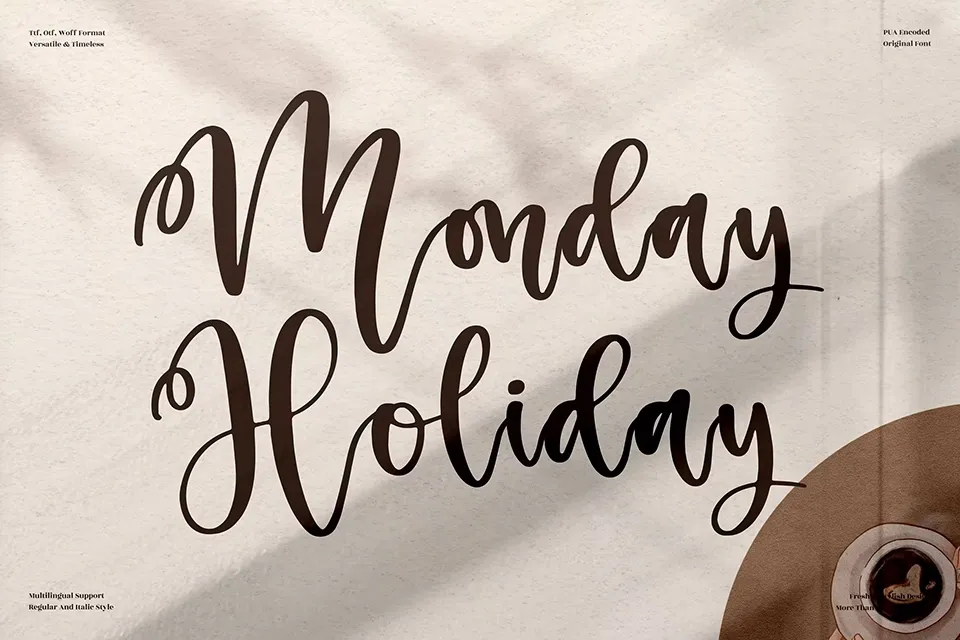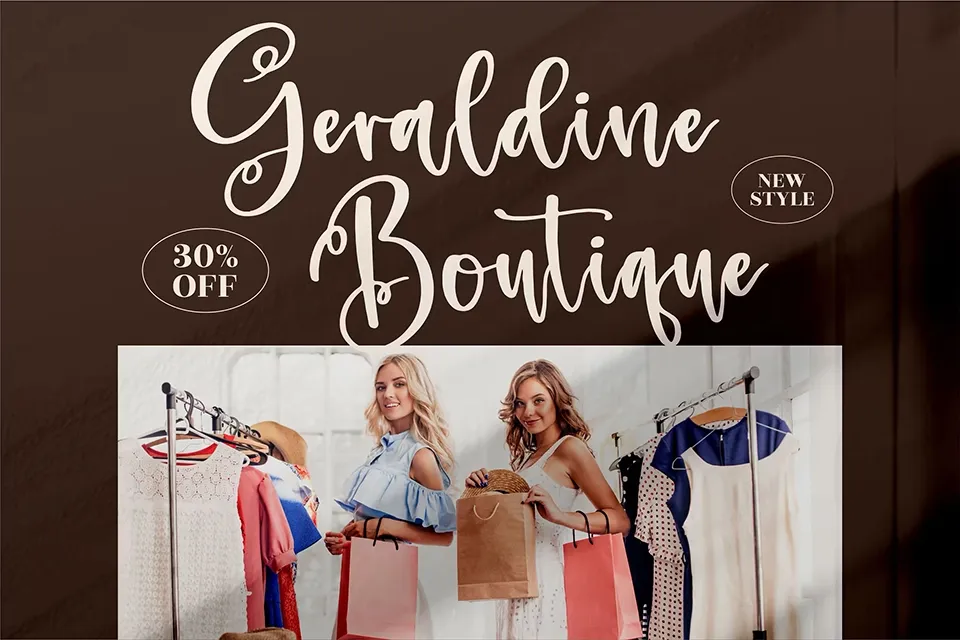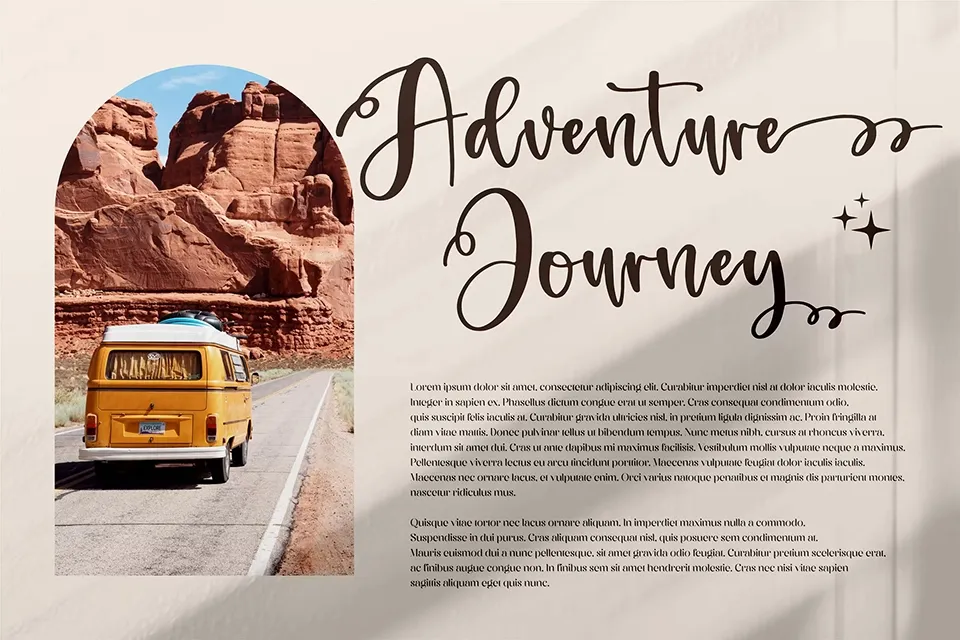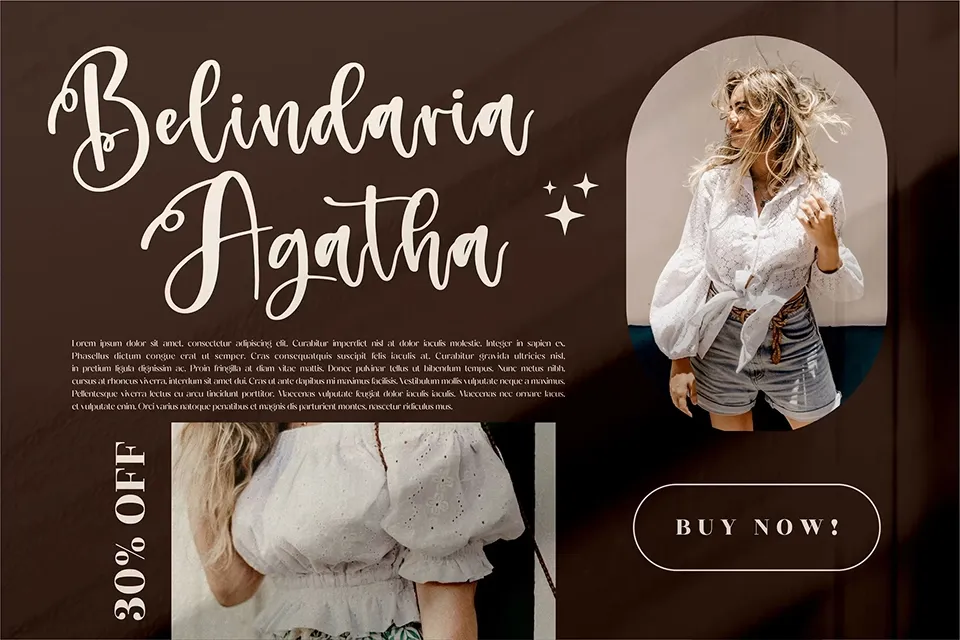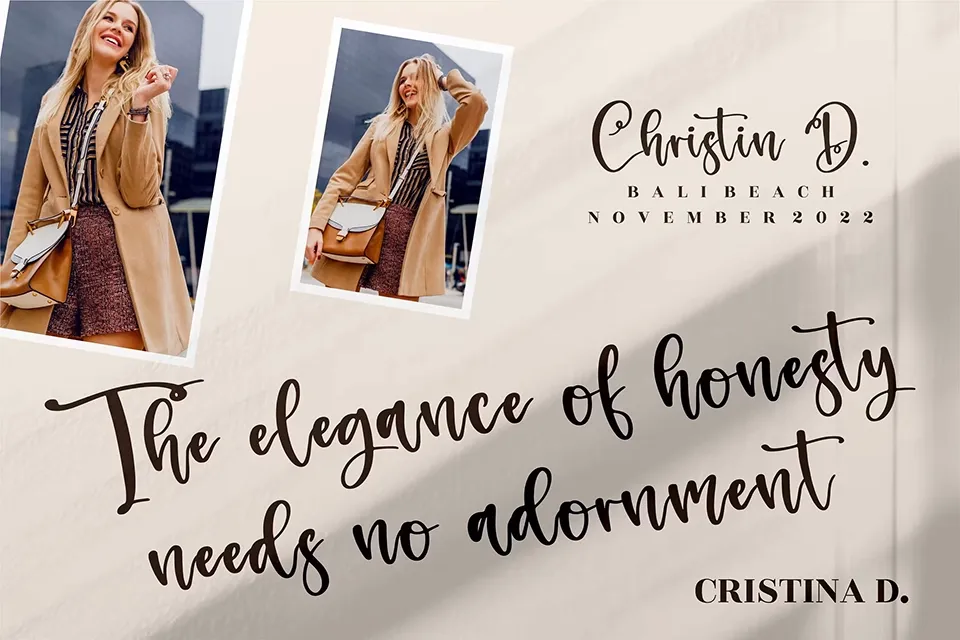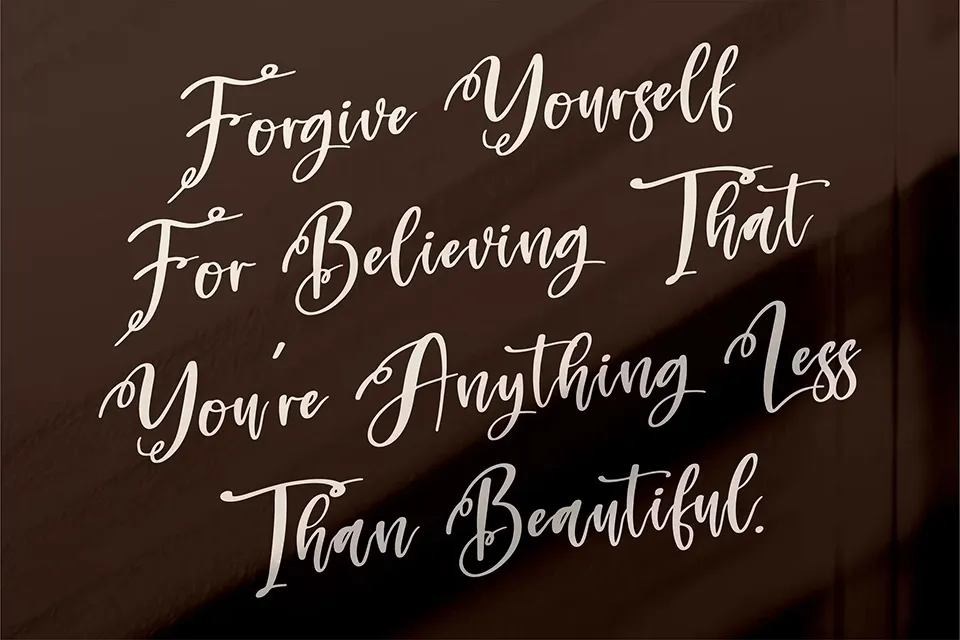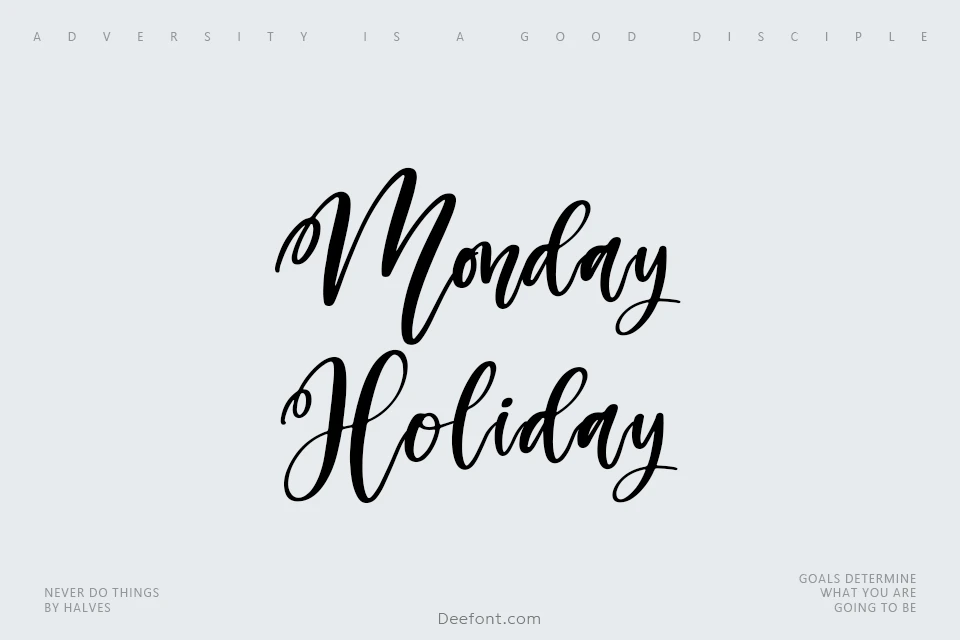
Monday Holiday Font
Monday Holiday Font is a sweet and friendly handwritten script that brings a playful, inviting touch to any design. With its flowing, elegant letterforms and balanced thickness, this font is perfect for wedding invitations, greeting cards, branding, and creative projects that need a personal, joyful feel. Monday Holiday is PUA encoded, making it easy to access all its unique glyphs and swashes. It offers multilingual support and is available in both regular and italic styles, ensuring versatility for a wide range of uses. This font’s charming character makes it ideal for adding warmth and personality to your work.